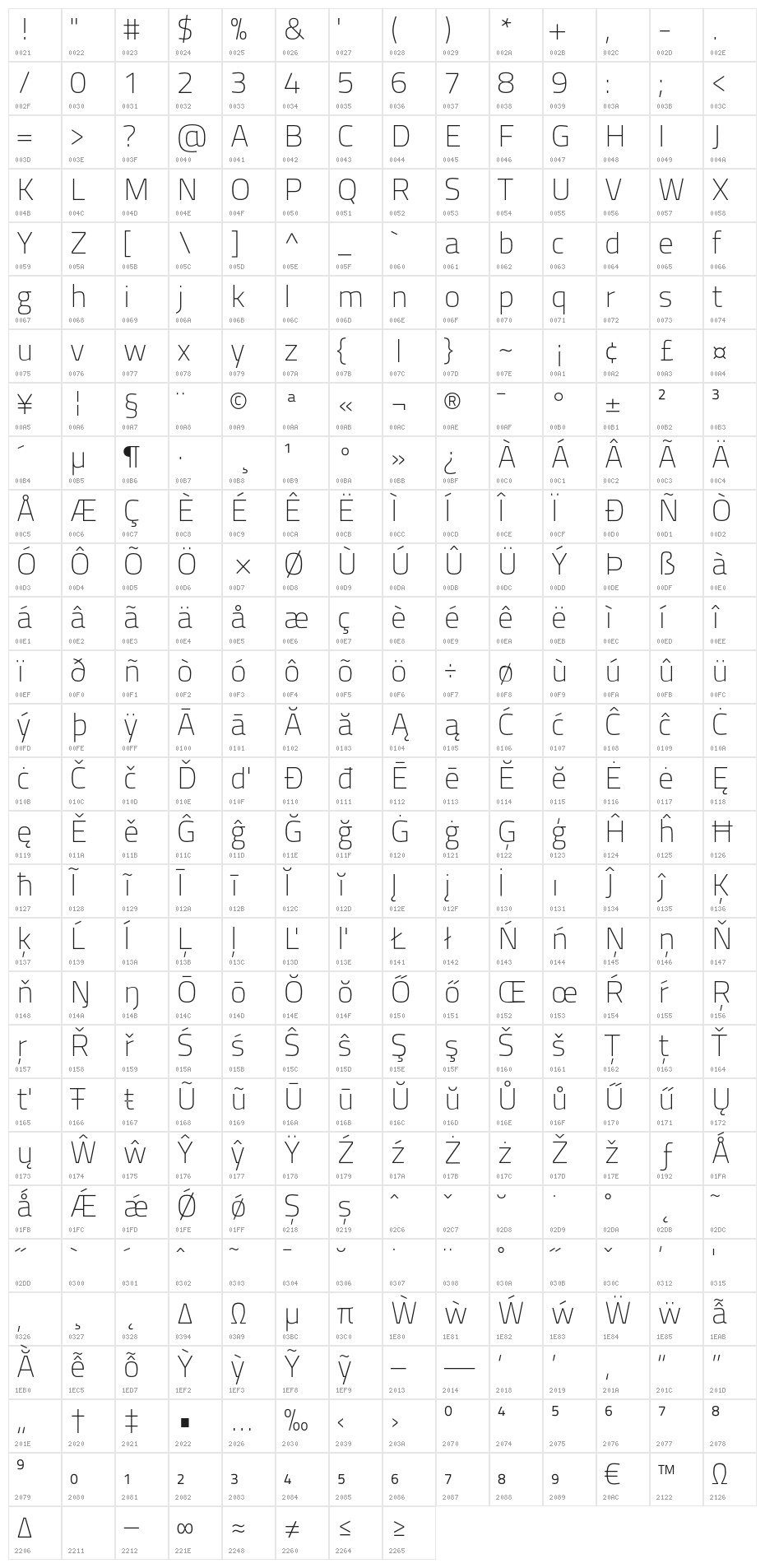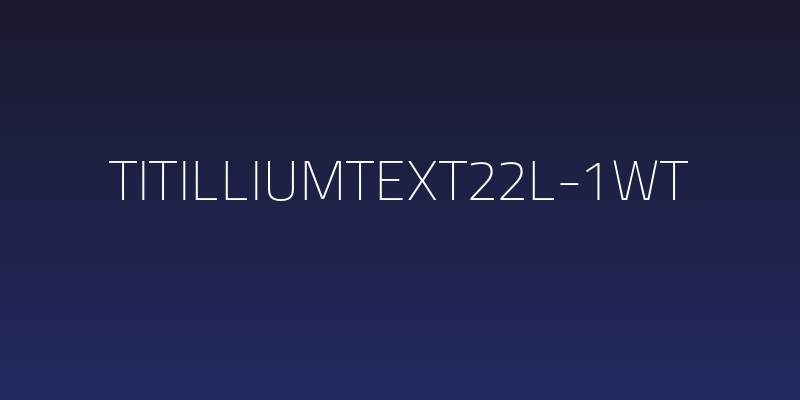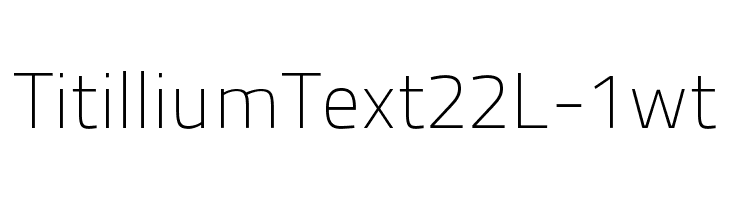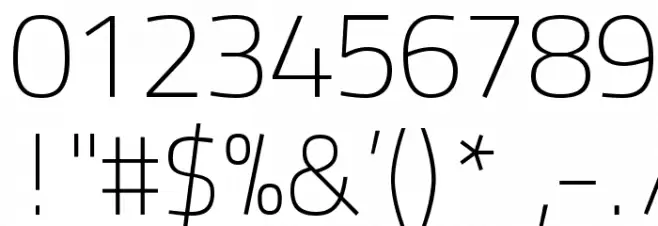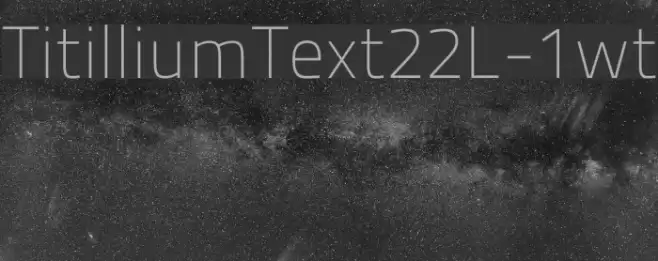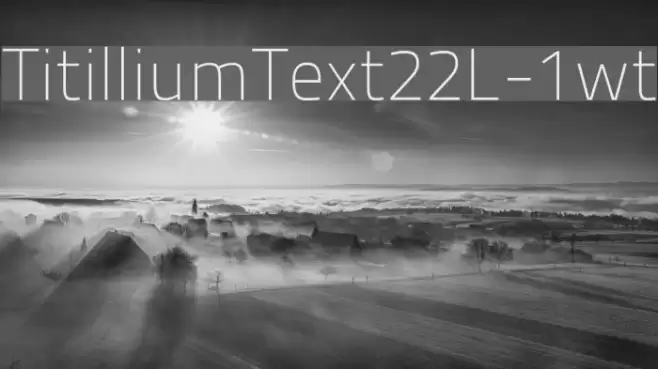
TitilliumText22L-1wt Font
TitilliumText22L-1wt Description
This font features a clean and modern sans-serif design with a geometric structure. The characters are crafted with precision, offering a uniform and balanced appearance. The uppercase letters are slightly taller than the lowercase, providing a clear distinction. The numerals are straightforward and align well with the overall style, making them easy to read. Special characters are designed with the same attention to detail, ensuring consistency across all glyphs. The font's simplicity and clarity make it versatile for various applications.
| Use Case | Headlines, Body text, Logos |
| Proposed Projects | Ideal for digital interfaces, branding, advertising, and editorial design due to its clarity and modern appeal. |